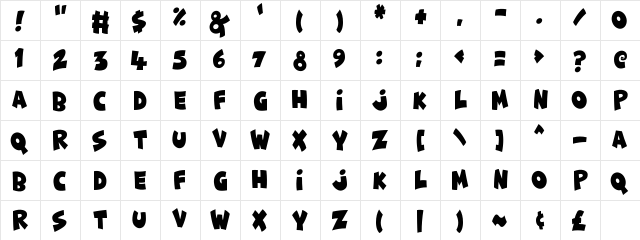
Funny & Cute Regular
Design Context for Funny & Cute Typeface
Funny & Cute trades formality for fun, with bouncy, characterful letterforms that bring warmth and energy to any project.
Font Pairing: Pairs well with a rounded or humanist sans for body copy, maintaining the friendly tone without relying on Funny & Cute to carry extended reading.
Pro Tip: Avoid using Funny & Cute for long passages of text — it works best for headlines, labels, and short calls to action.